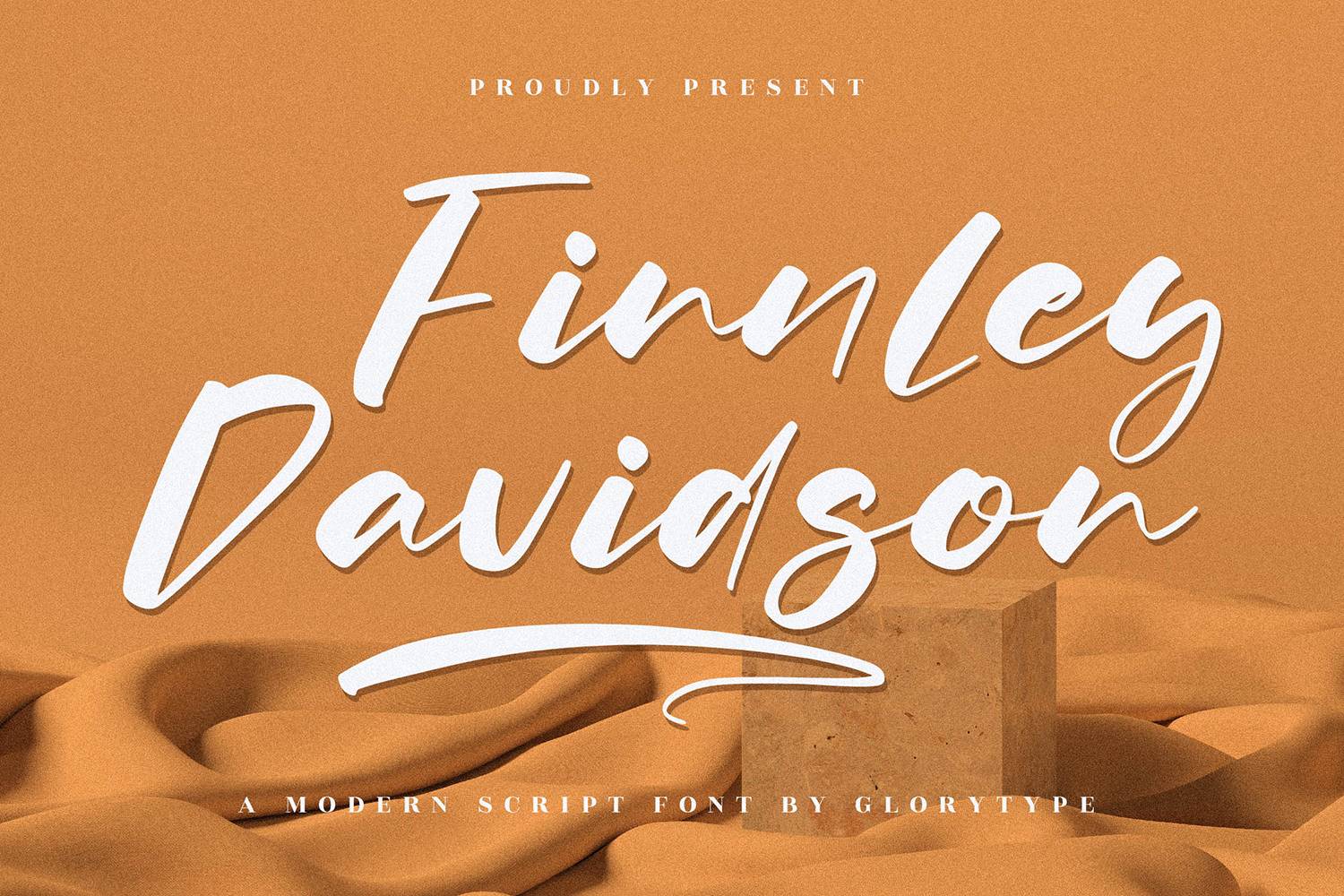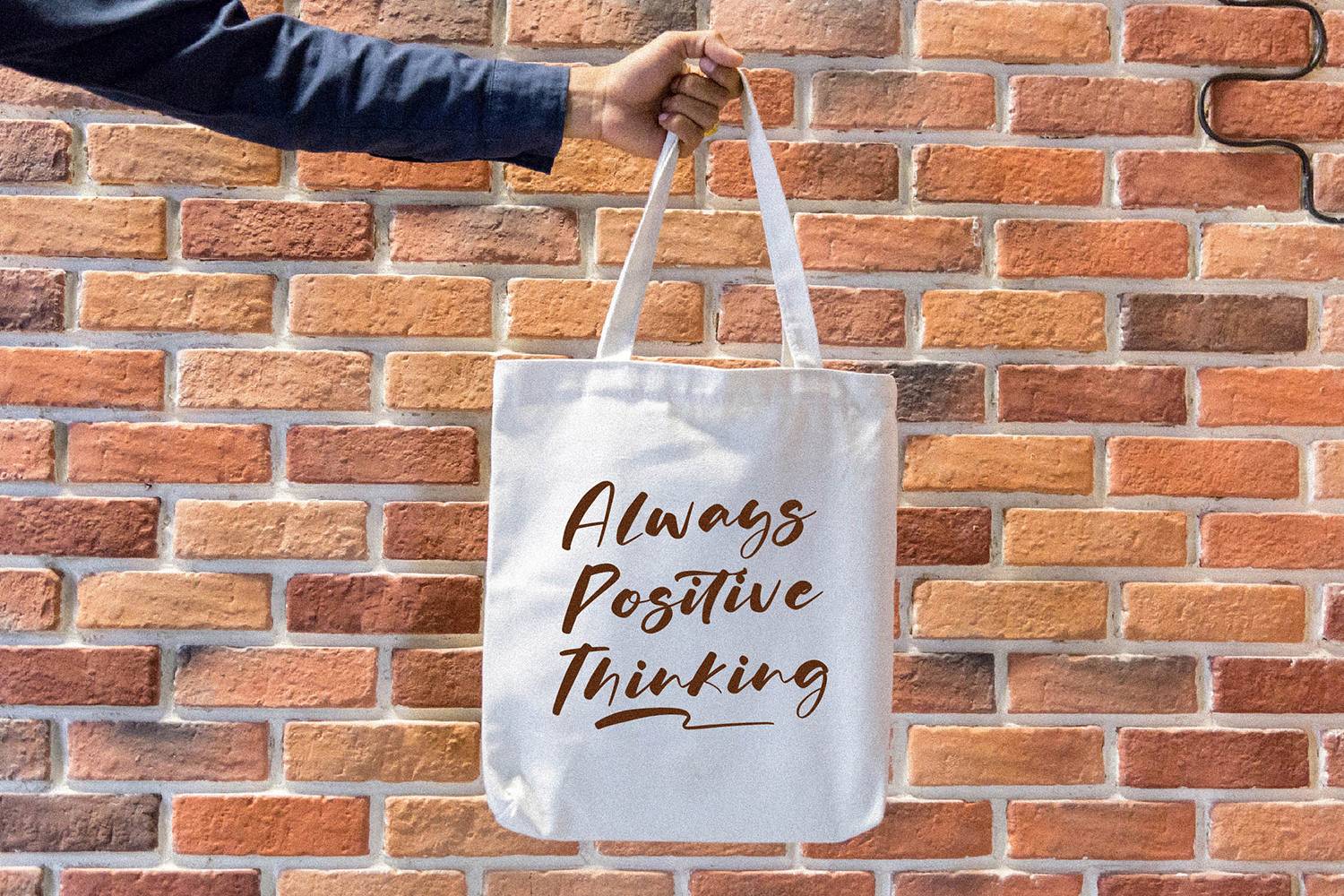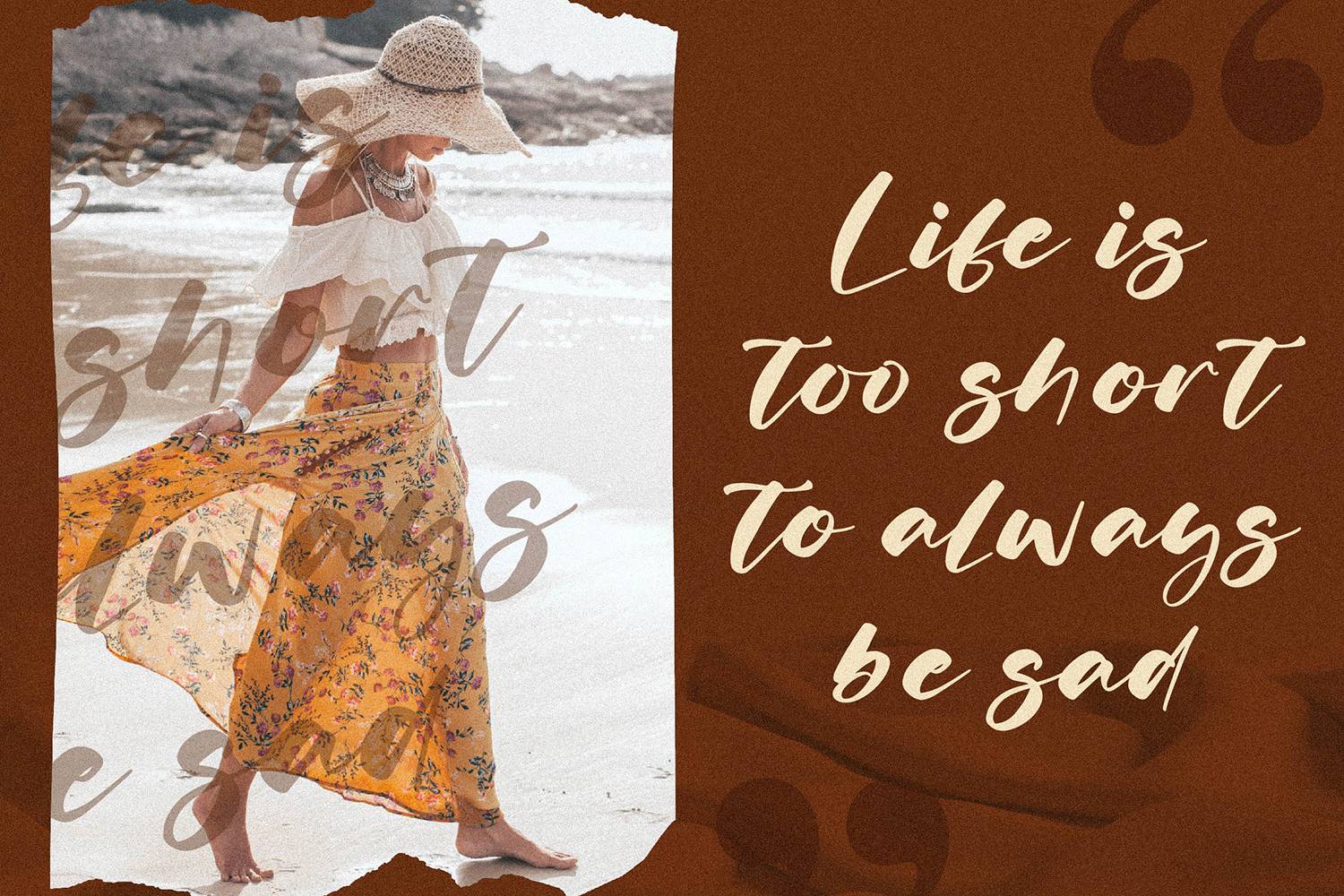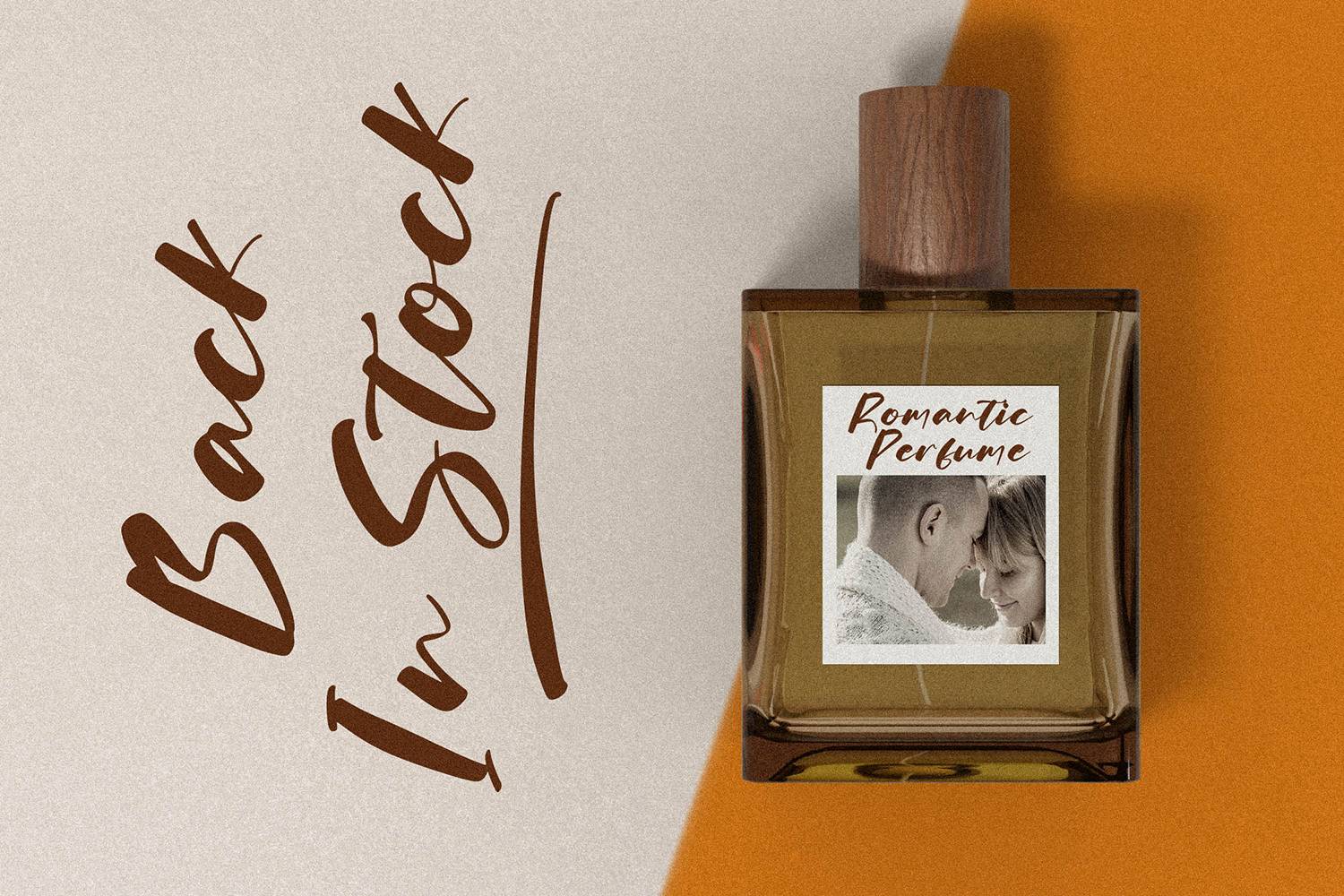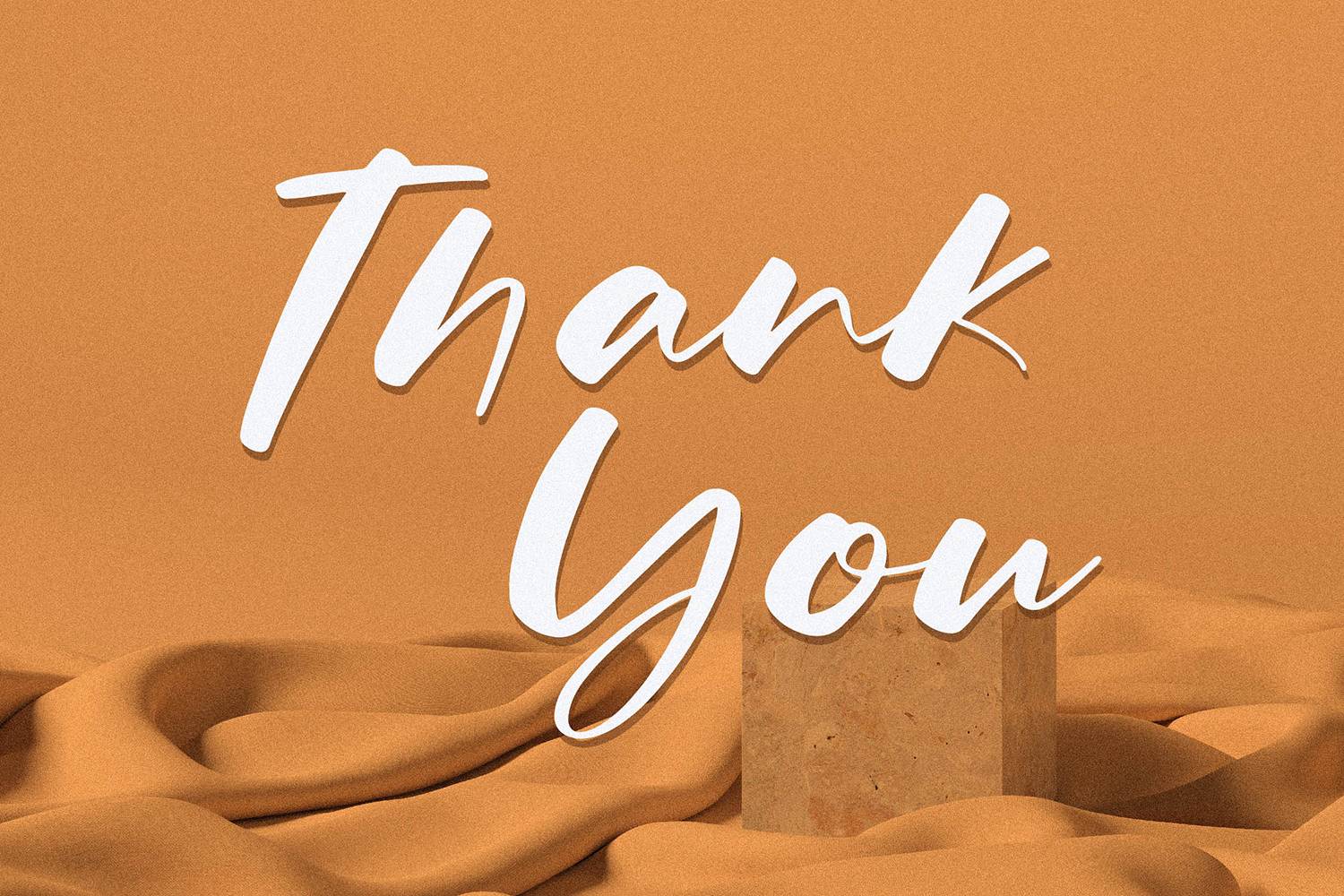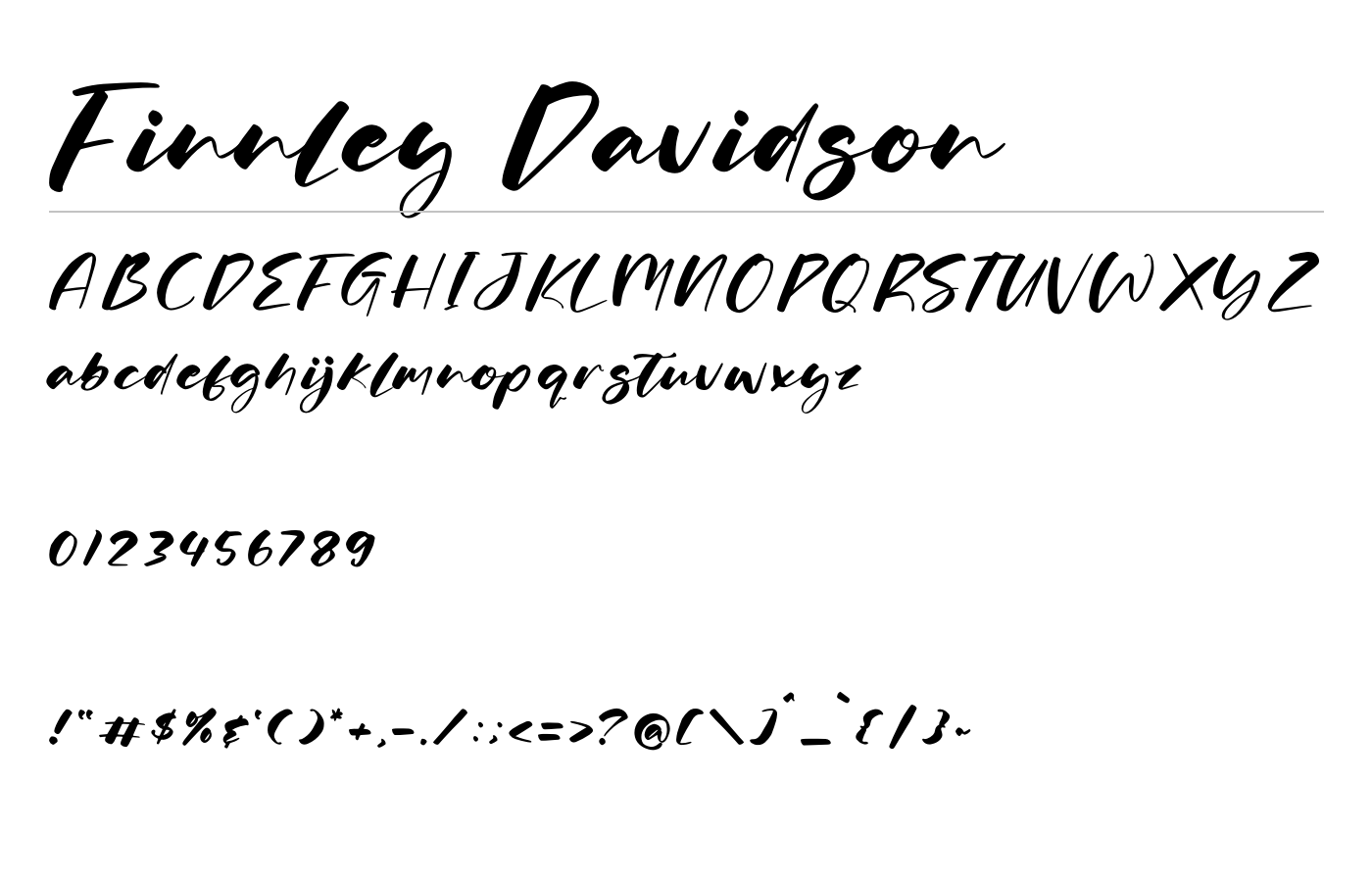
Finnley Davidson is a stylish script font with a modern, handwritten feel, featuring smooth, flowing strokes and moderate contrast in weight. Its elegant, casual appearance makes it perfect for creative branding, invitations, and lifestyle projects that want to convey approachability and artful personality. This font works well in both headlines and logo designs where a personal, expressive touch is desired.
Finnley Davidson Font
About Finnley Davidson Font